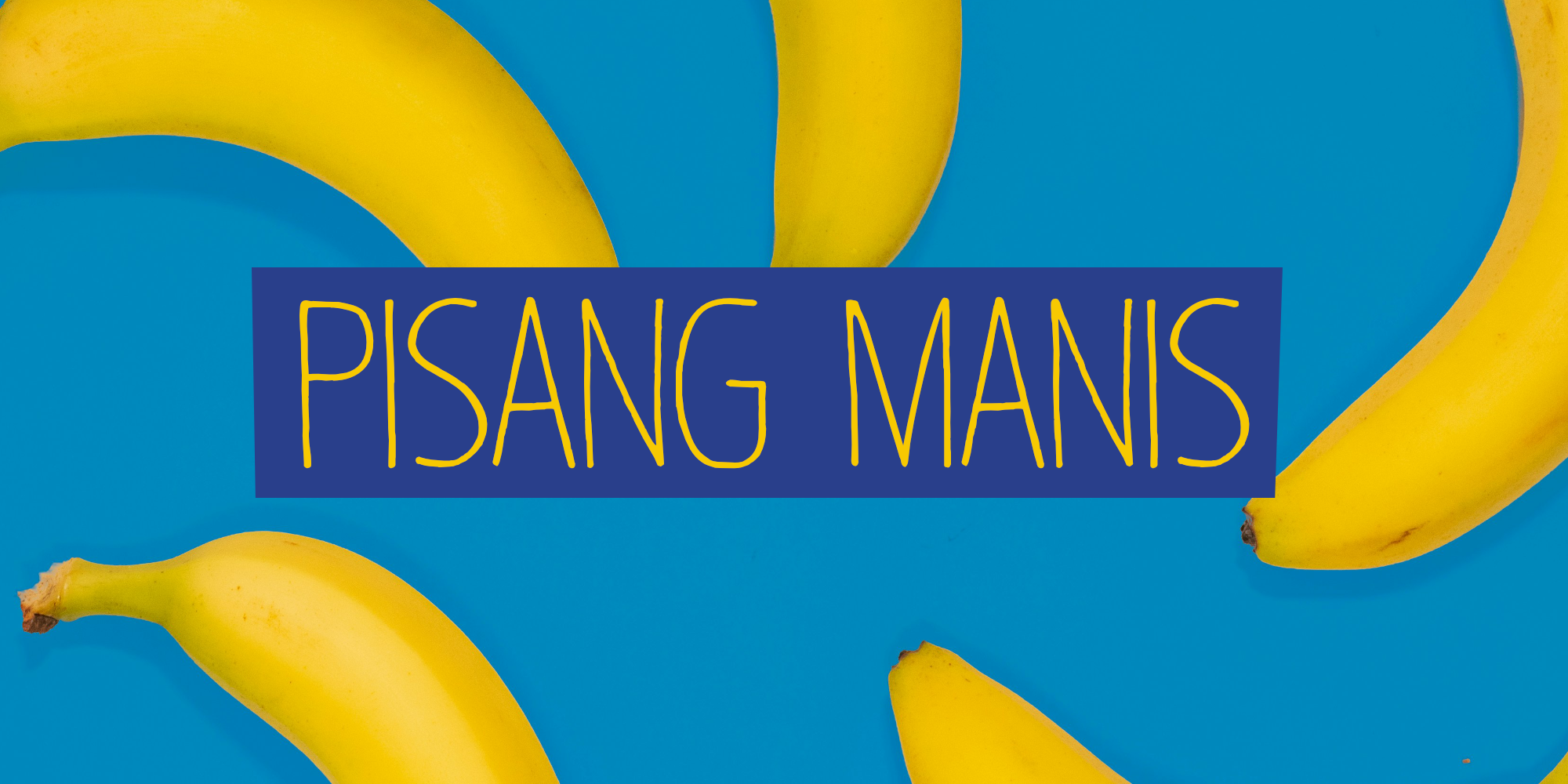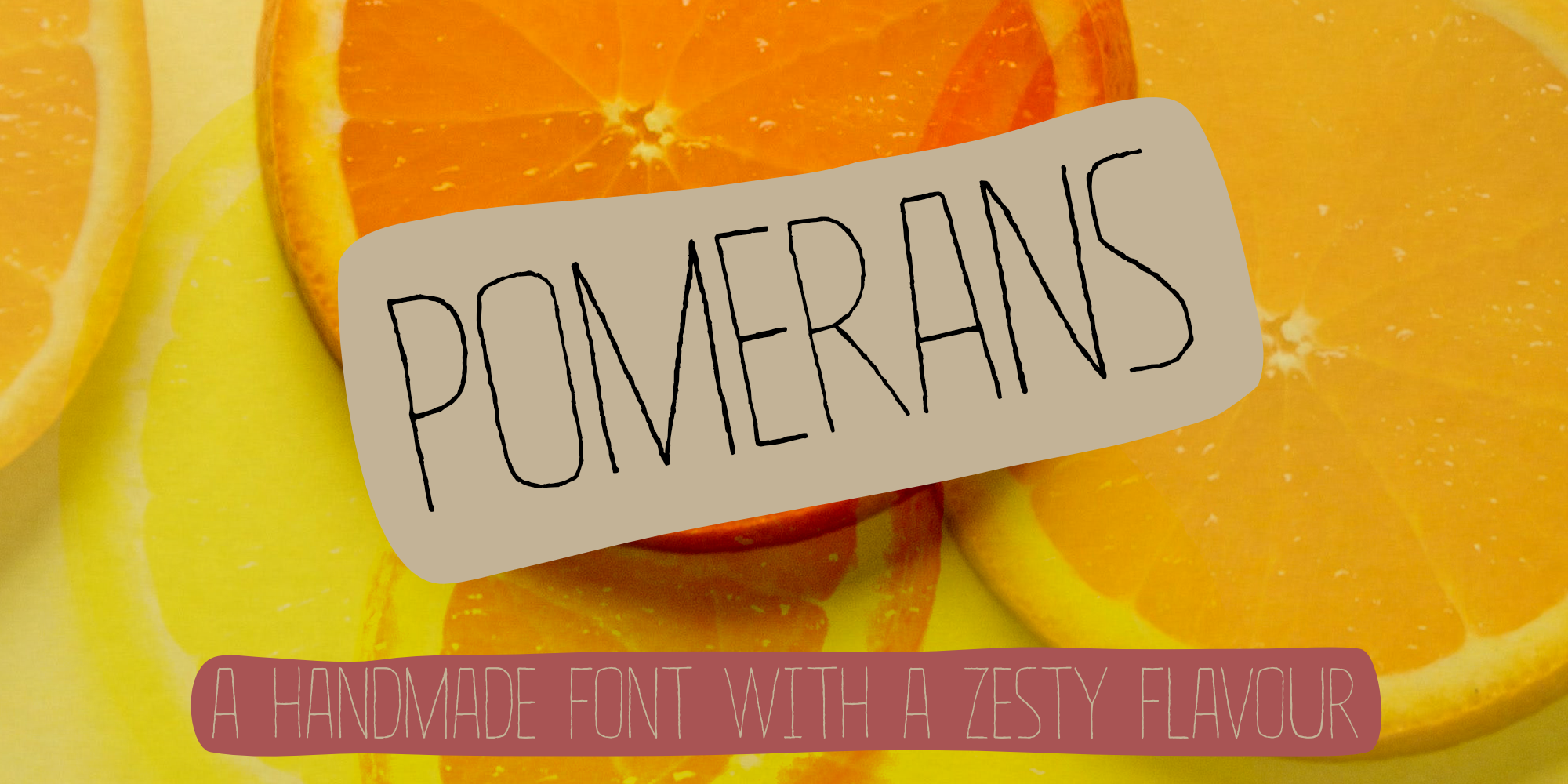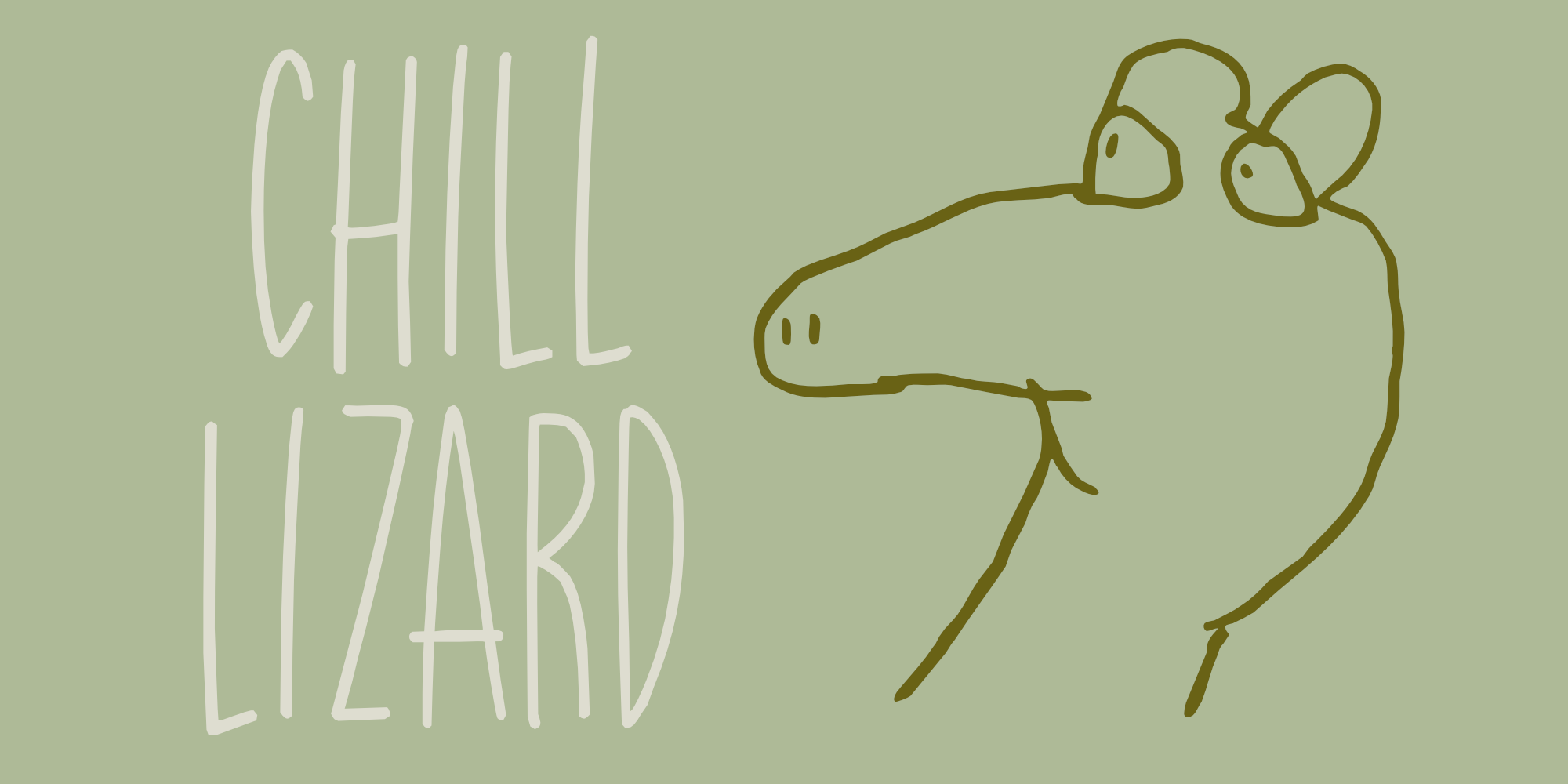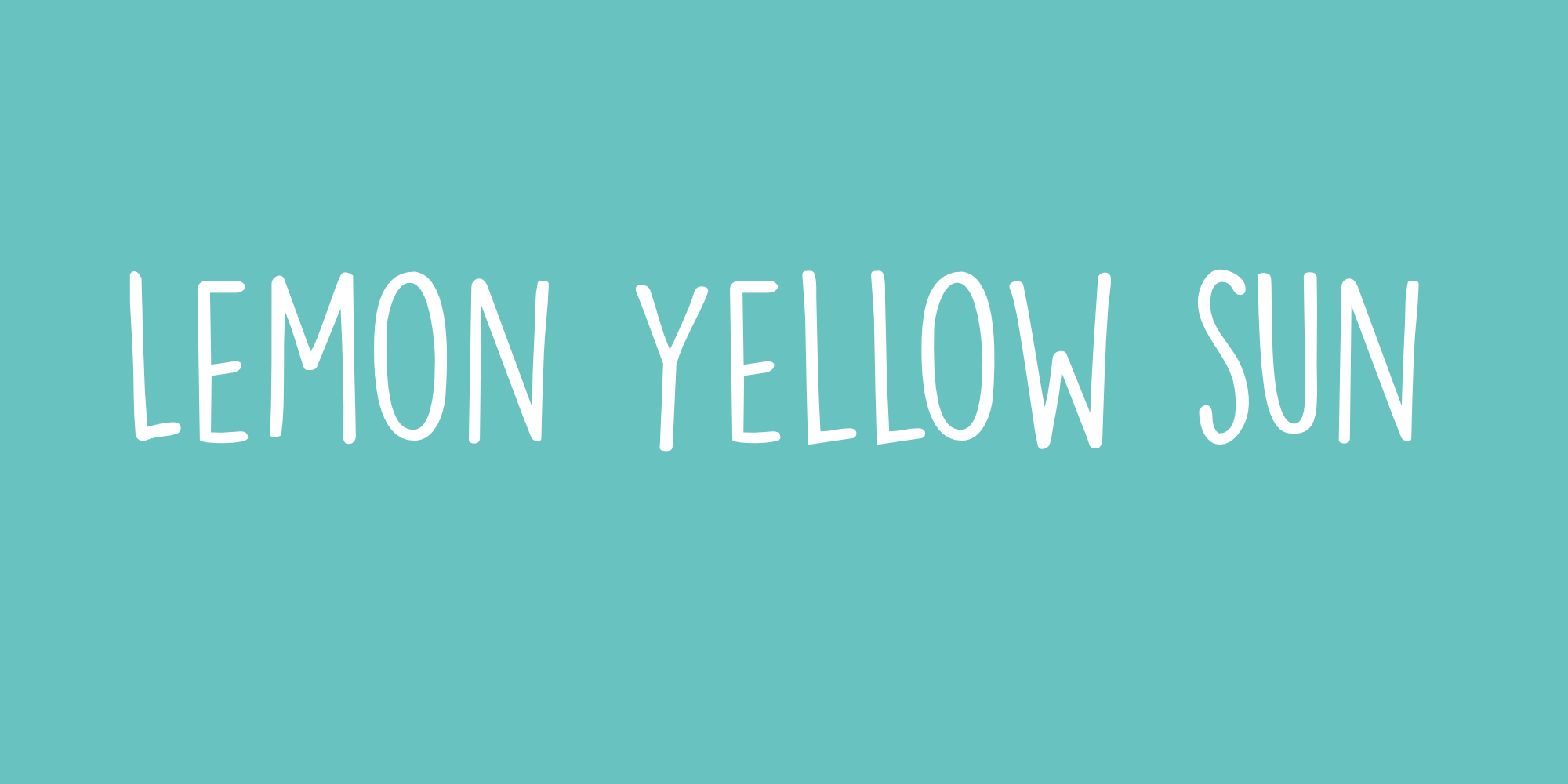
Fiets
Fiets is Dutch for bicycle. The origin of this word is unknown, but it has been part of the Dutch language since 1870. The Dutch love their bicycles and we ride them just about anywhere! My family and I are going on a bike-trip in the UK this summer, so I just had to name this font Fiets! Fiets is a handmade…
Absolutely Lovely
With so much bad news going on in the world today, I thought a lovely font with an absolutely lovely name was what the masses needed. Besides that, a friend told me that Mercury Retrograde starts on Saturday, March 15th, so you can use this font when everything in your life descends into chaos! 😉 Absolutely Lovely is a handmade font. It…
Spanish Plonk
‘Plonk’ in British, New Zealand and Australian vernacular means ‘cheap wine’. It is also called ‘Cardboardeaux’, or (in my country) ‘Château Migraine”. Plonk is often bought in 5 liter boxes or even plastic bottles. It doesn’t really taste that great, but it gets the job done – especially when you’ve already had a few. Apparently it will not be that cheap for…
Insomniac
Insomniac is a tall, narrow, handwritten typeface. A little rough, a little shaky, a little uneven. The idea for this font came to me in the middle of the night – hence the name. Insomnia is an all caps font, but upper and lower case differ and glyphs can be freely interchanged. Comes with a diacritics dream team.
Midnight Chalker
Midnight Chalker is, well, a chalk(ish) font and it was (fro the greater part) created around the midnight hour. That’s usually when I get my inspiration. Midnight Chalker is a tall, eroded font – all caps, but the upper and lower case differ and can be mixed. Of course it comes with more diacritics than you can throw a chalkboard at.
Lemon Yellow Sun
Lemon Yellow Sun is a line from my favorite Pearl Jam song – Jeremy. It also happens to be the title of a Stiltskin song, so I had to name a font after it. LYS is a tall, all caps typeface with lots of bouncy glyphs and lots of diacritics. Upper and lower case have been designed to mingle, so have a…
Wormhole Wednesday
Wormhole Wednesday is a handmade font that can be used for a variety of designs. Its light character makes it perfect for text on product packaging, in books or on websites. Wormhole Wednesday comes with a set of alternates for the lower case glyphs and extensive language support!
Chill Lizard
My youngest son Boris is a special boy: he knows EVERYTHING about animals, even the things he shouldn’t know, since he’s only 8 years old. In the beginning we always laughed a bit when he told us things like ‘did you know wombat poo is cube shaped?’, but we soon realised that everything he said was in fact true (including the wombat…
Pisang Manis
Pisang Manis means ‘sweet banana’ in Bahasa Indonesia. I don’t think this particular combination is used in everyday life, but it sounds nice. Pisang Manis is based on an older font of mine, called Pisang, which I created in 2013. It looks similar, but it is a different font altogether. Pisang Manis is a ‘Tall & Thin’ display font, ideally used for…
Pomerans
Pomerans is a redo of an old font of mine called Suco De Laranja. Since the original font had a citrusy name, I decided to name this reincarnation Pomerans, which means ‘Seville Orange’ in Dutch. I doubt that there are many Dutch people who actually know what a pomerans is! Pomerans is a handmade, all caps font. I kept the look and…